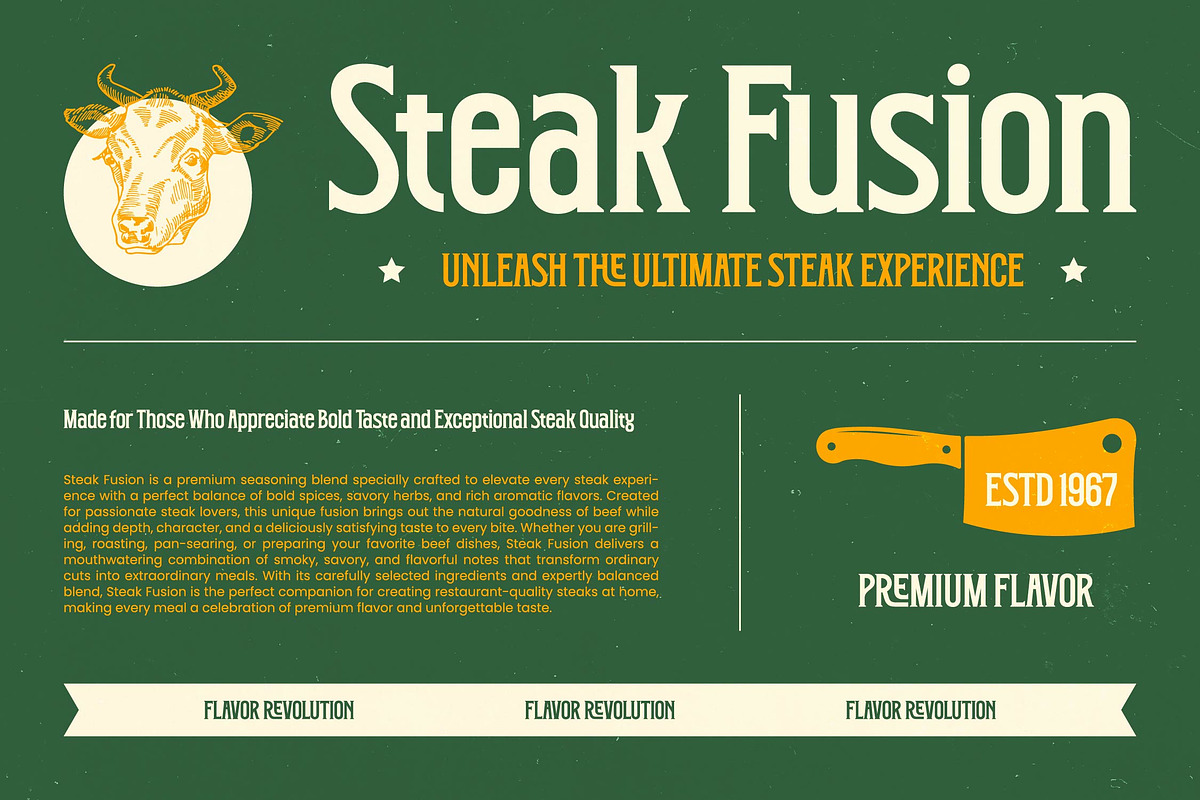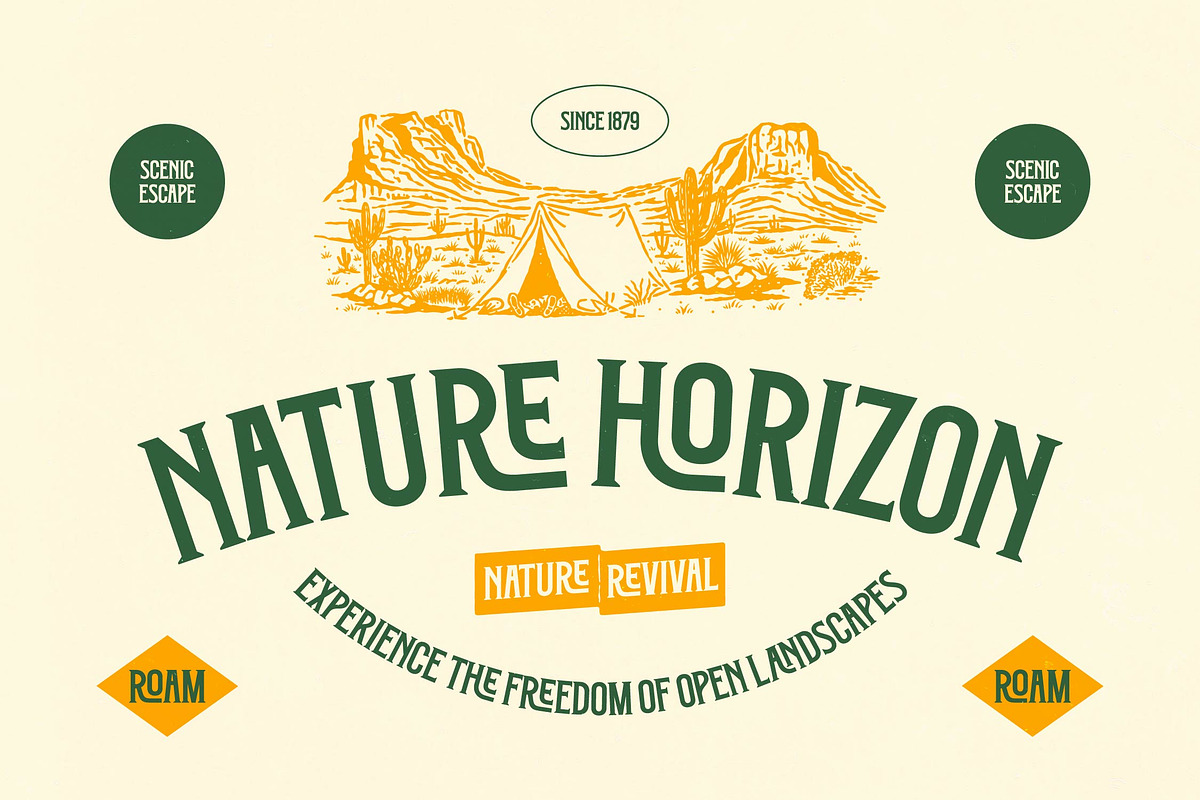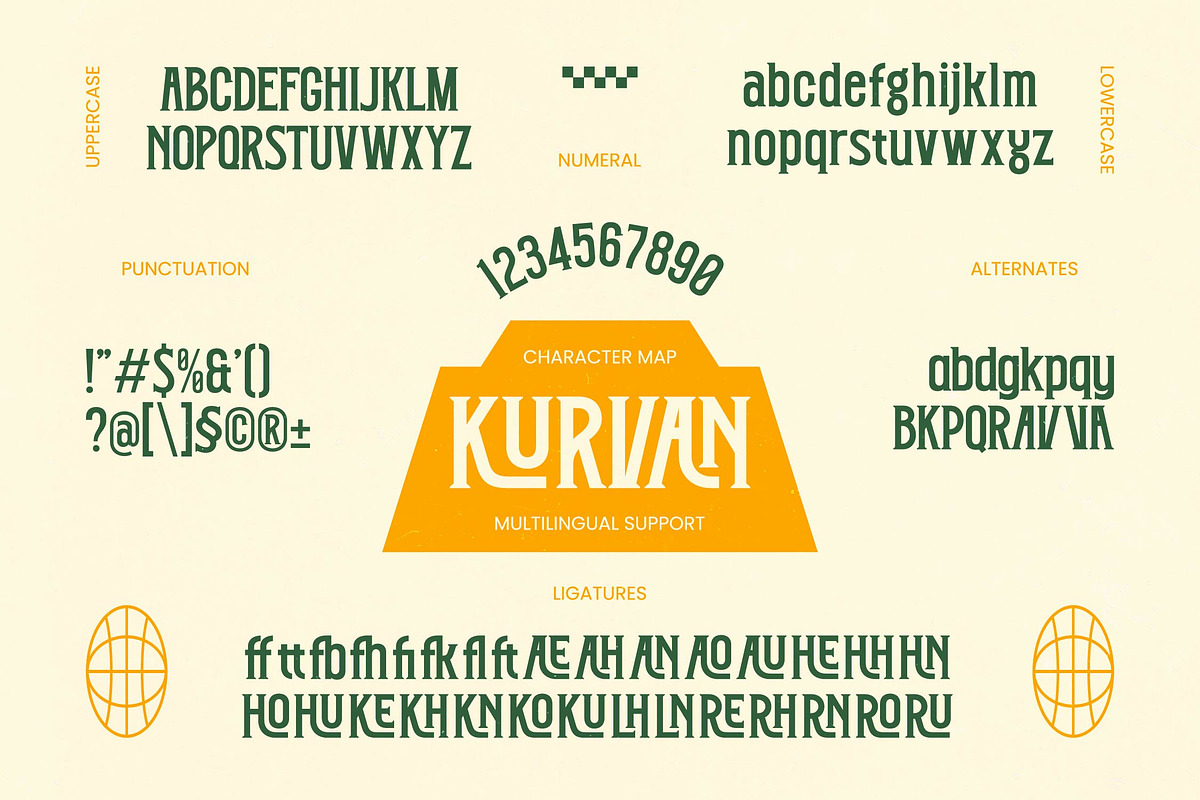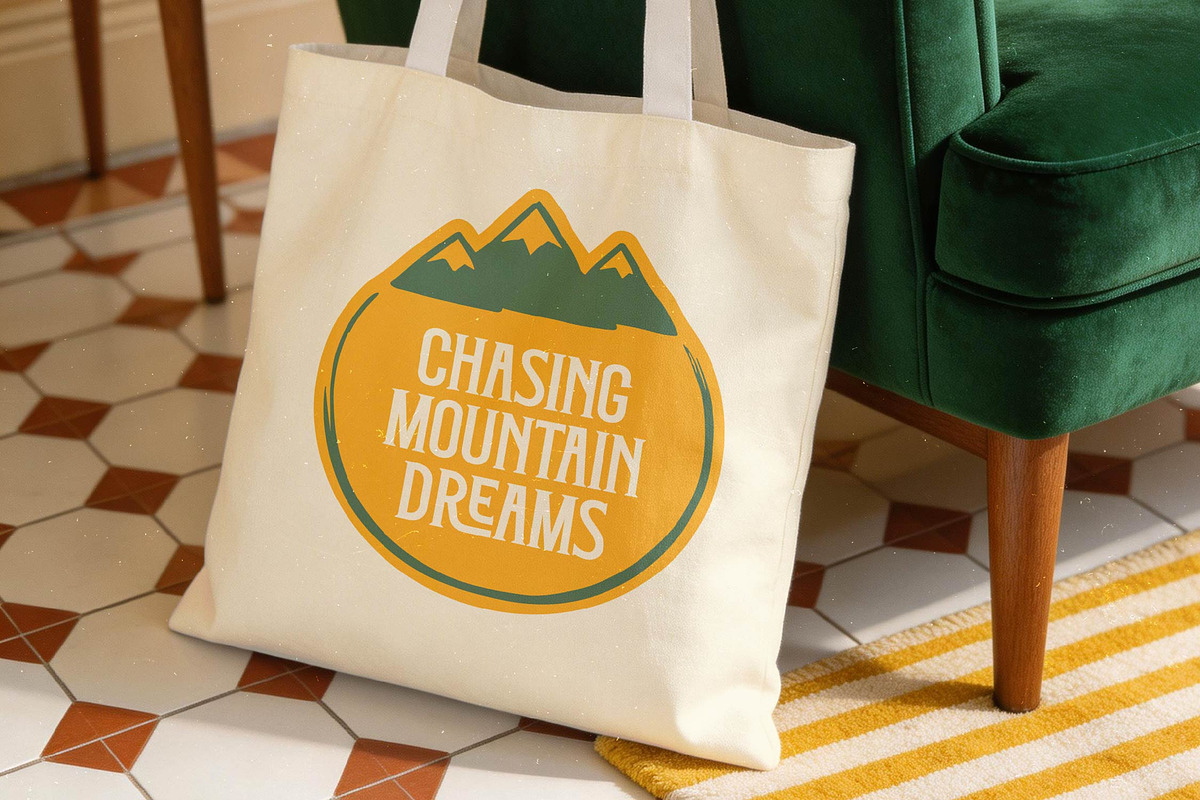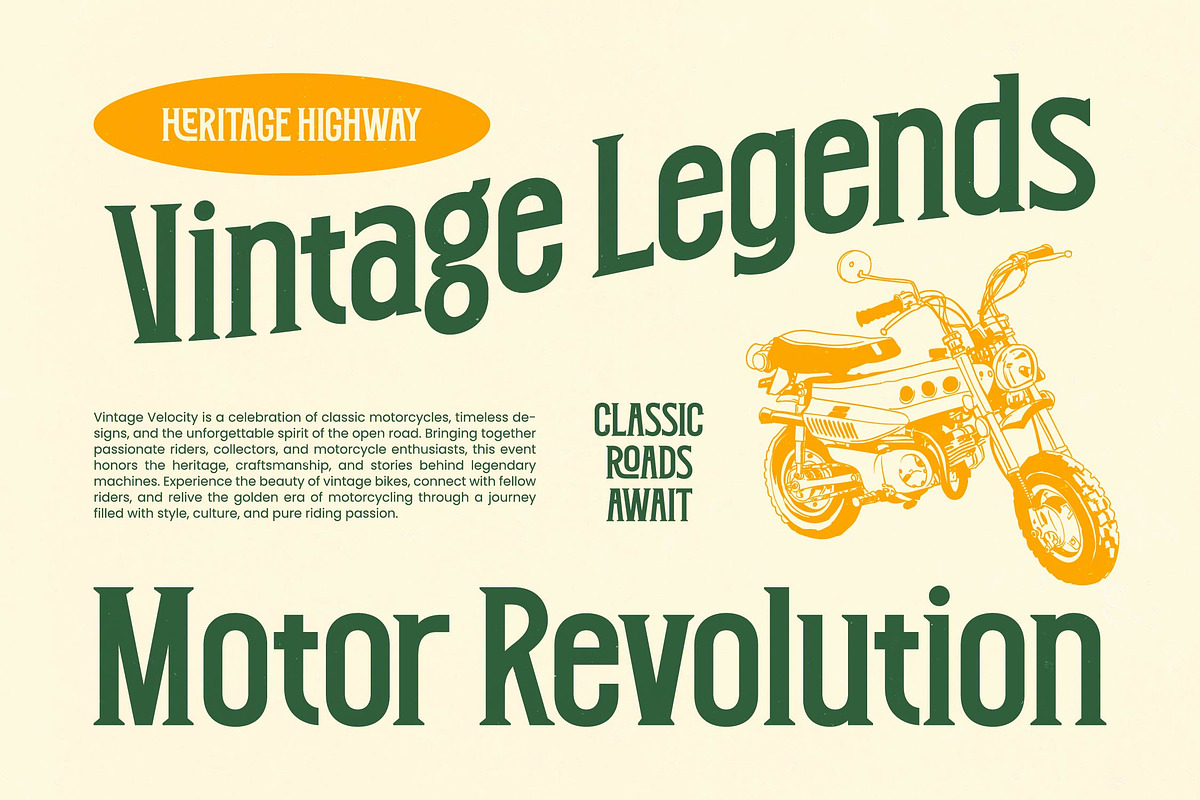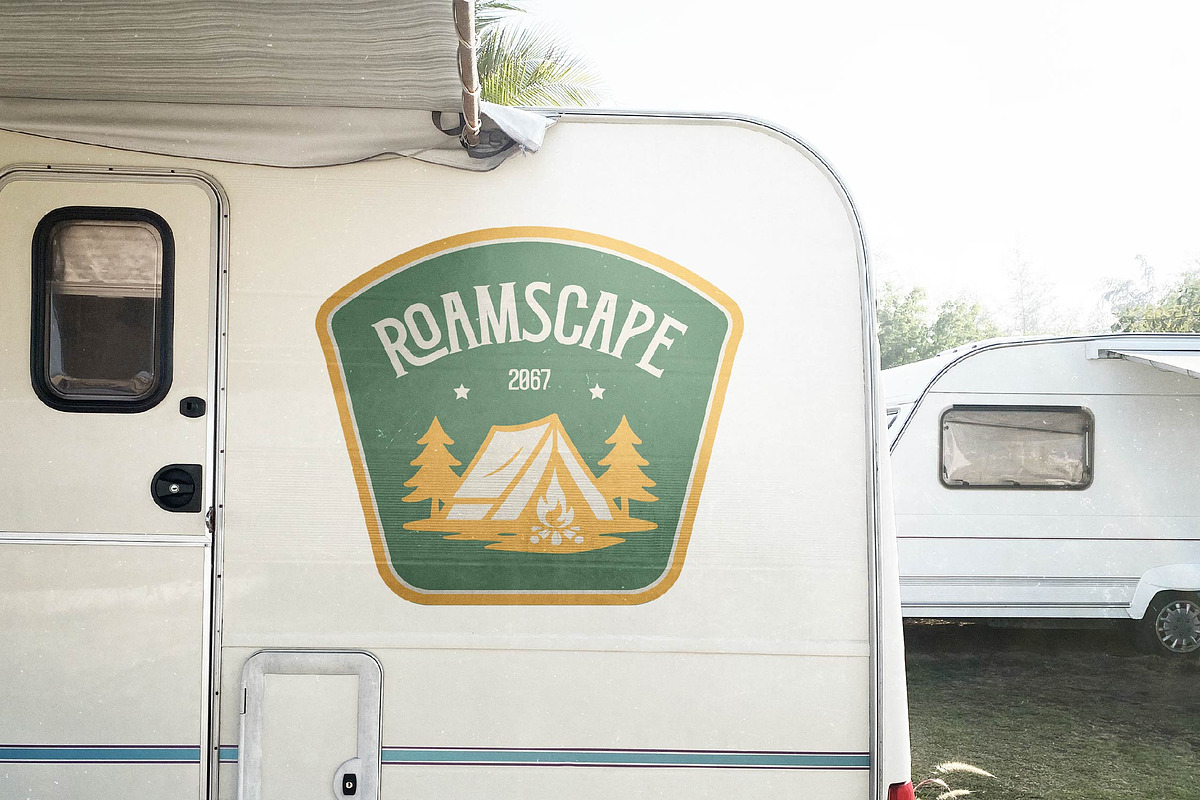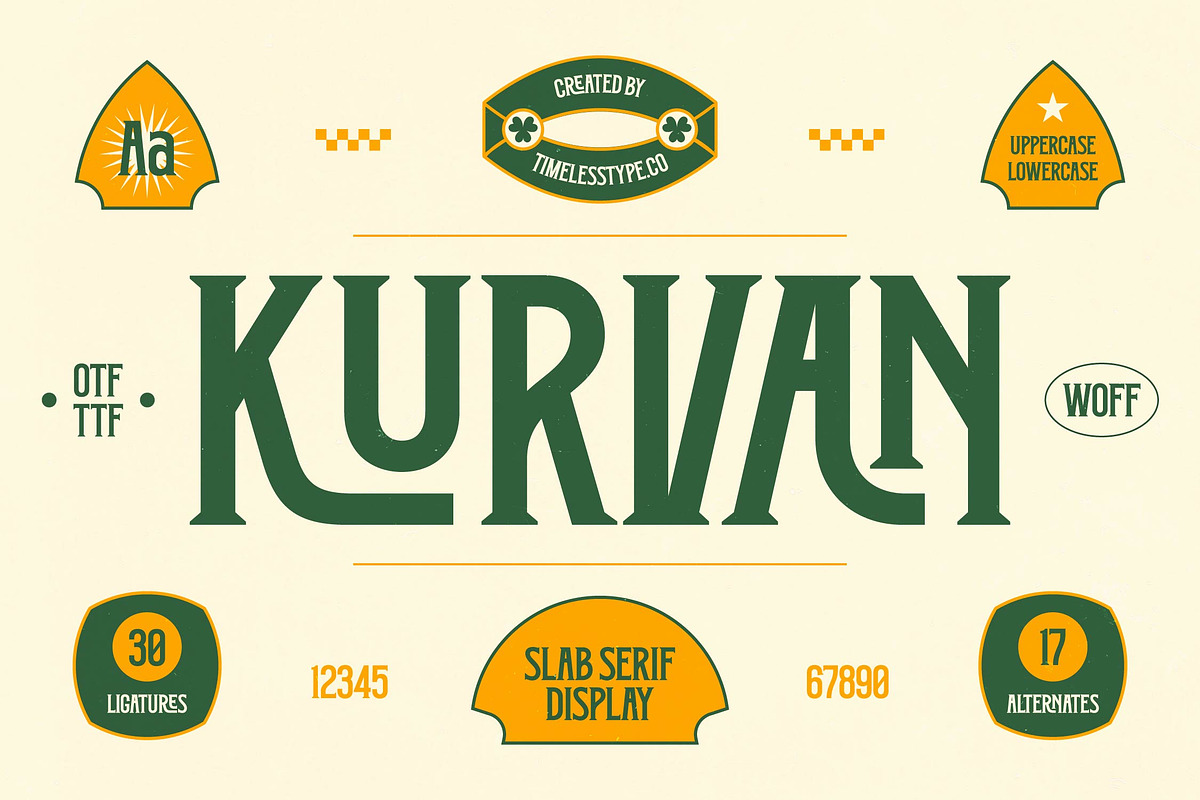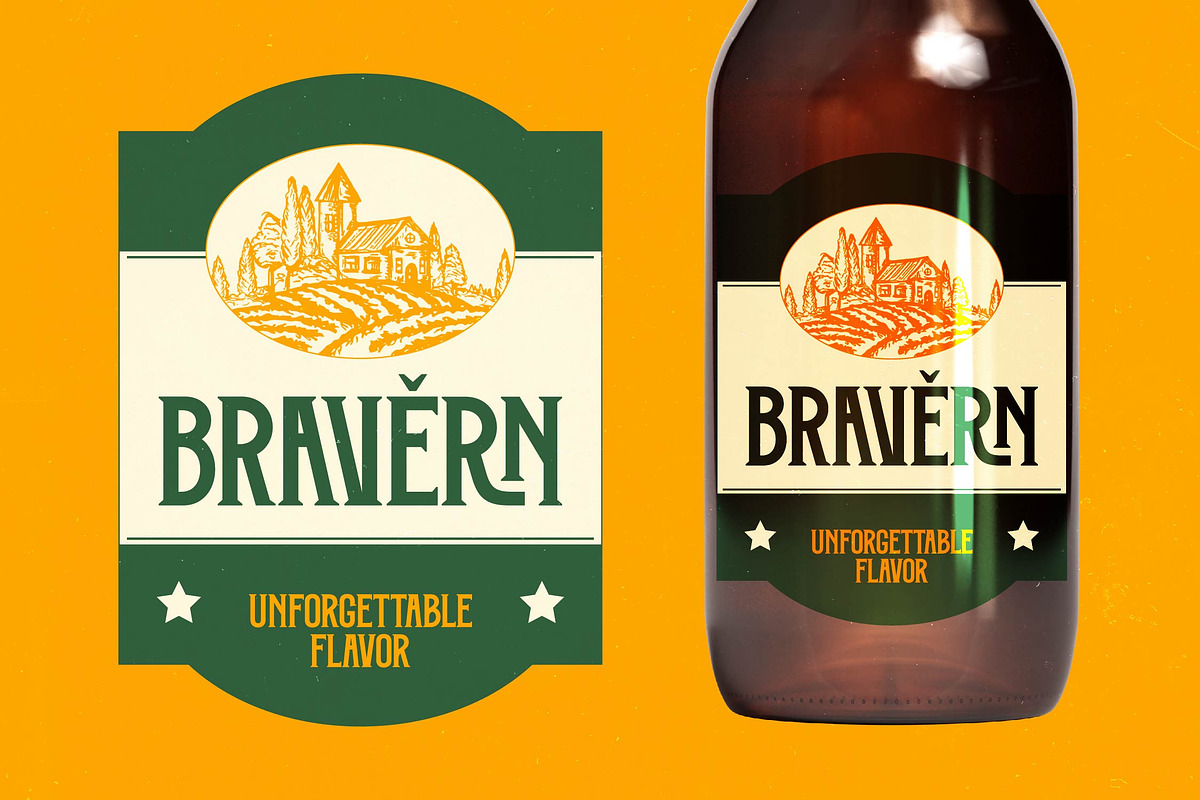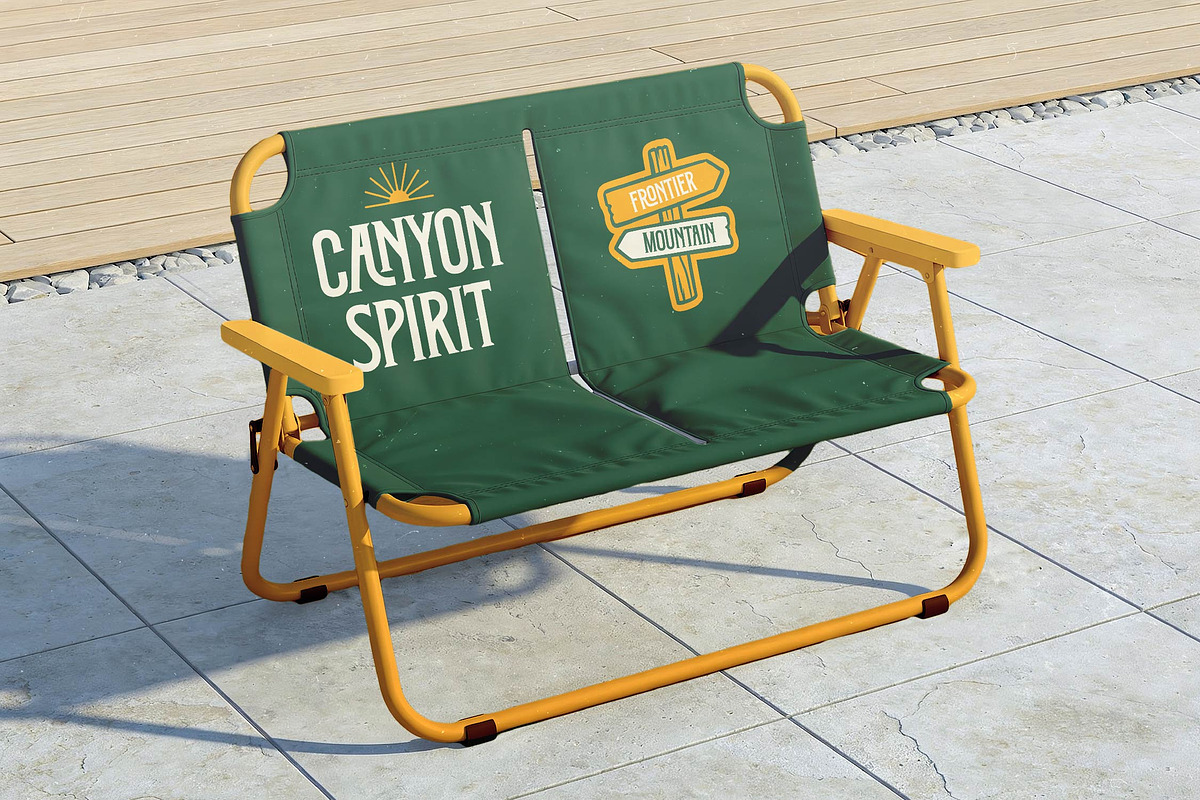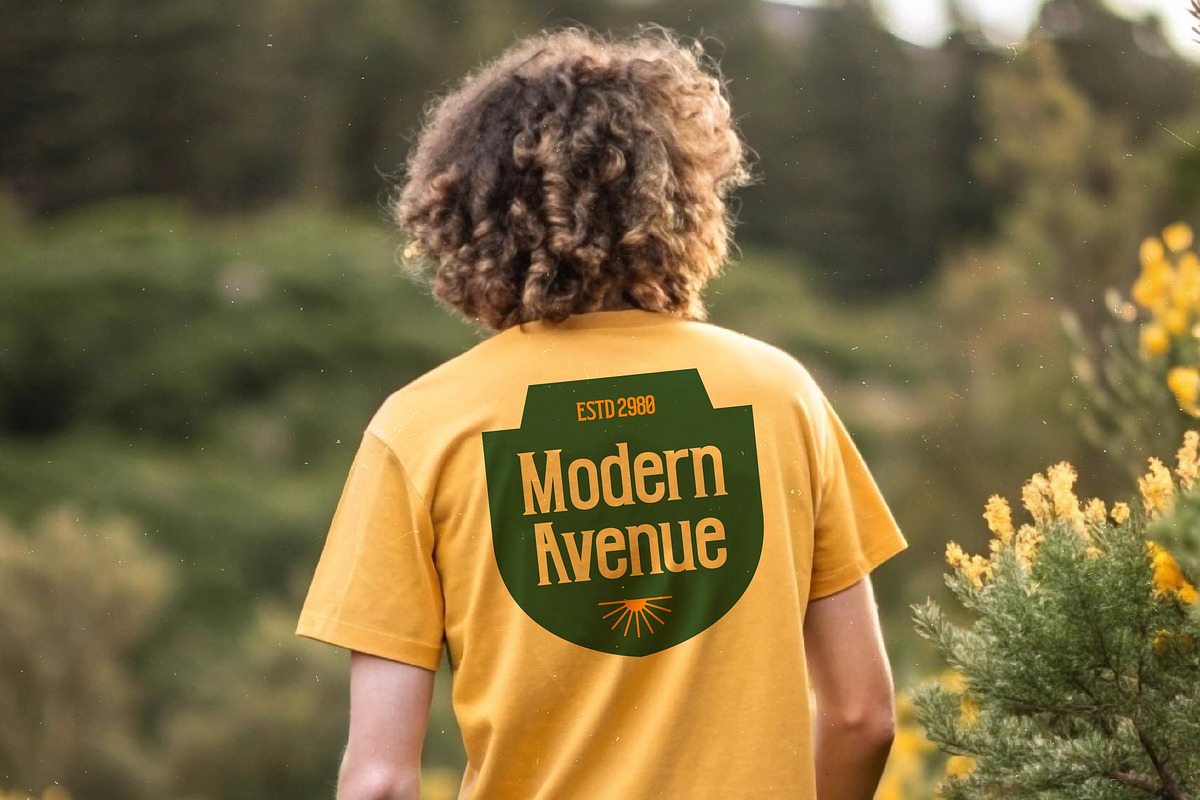
Kurvan Slab Serif Display
**Kurvan - Slab Serif Display , **Elevate your visual identity with a typeface that commands immediate attention and respect. Kurvan - Slab Serif Display represents the pinnacle of bold typography, merging vintage character with a modern aesthetic. Its high-contrast strokes and sturdy serifs offer a powerful visual rhythm that is both authoritative and inviting, making it an essential asset for any creative professional looking to make a statement.
Unmatched versatility is baked into every glyph of this comprehensive design toolkit. Featuring over 30 unique ligatures and 17 stylistic alternates, Kurvan - Slab Serif Display empowers designers to create custom logo design and distinctive headlines with ease. This level of detail ensures that every project maintains a bespoke feel, providing a premium design solution that stands out in a crowded digital or physical marketplace.
Global reach is effortless with built-in international compatibility that ensures your message resonates across borders. With its extensive multilingual support, Kurvan - Slab Serif Display adapts seamlessly across global markets, making it incredibly versatile for international projects. This broad character set allows your brand to maintain a consistent identity across diverse linguistic landscapes without compromising on style, legibility, or impact.
Discover the perfect balance of form and function across a wide array of high-stakes professional use cases. Kurvan - Slab Serif Display is the ideal choice for luxury branding, premium packaging, editorial design, and high-end signage. It is perfect for creators aiming to achieve a timeless aesthetic that speaks directly to sophisticated audiences, ensuring your visual communication leaves a lasting and professional impression.